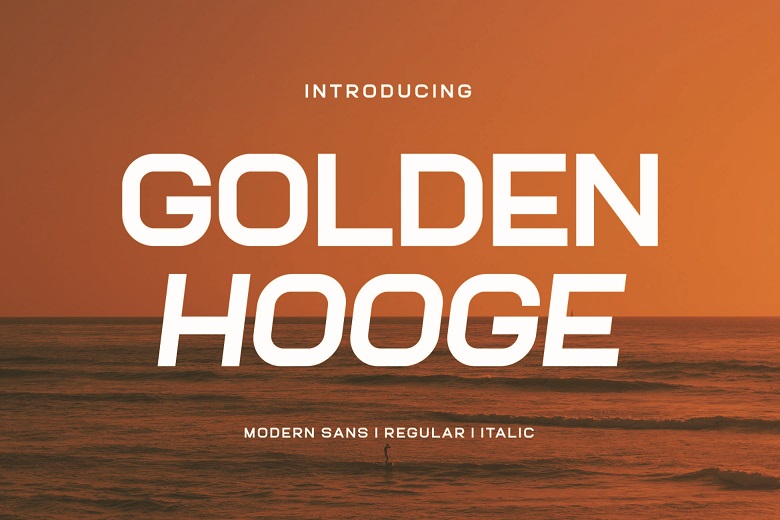
Golden Hooge Font
Golden Hooge Sans Font Typeface similar to the style of the minimalist logo available for purposes related to designing the templates, brochures, videos, advertisingbranding, logos, invitations, layout designs, and other elegant crafting and beauty designs. Available in Adobe Illustrator, Adobe Photoshop, Adobe Corel Draw. PUA Encoded Characters – Completely doable without extra design software. Fonts include multilingual support.
Golden Hooge Sans Serif Font